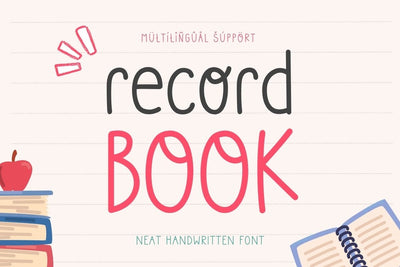
Record Book - Handwritten Font
Record Note is a neat and realistic handwritten font perfect for planners, Goodnotes, and Note-taking Apps whether you're planning your week, journaling, or creating digital art. Record Note is the font that multilingual support, you've been waiting for. Download it today and start writing! 🖊️